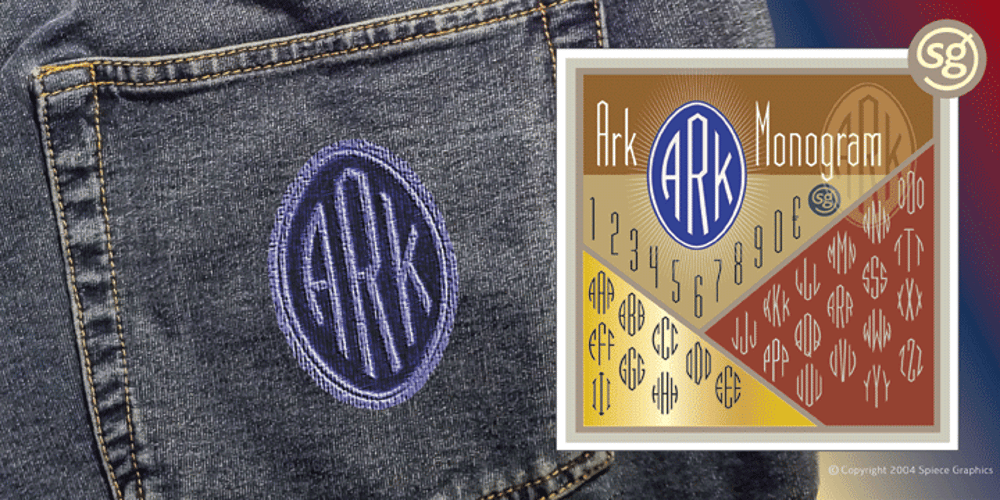
Ark Monogram SG
Ark Monogram SG font
Ark Monogram SG Font Family was designed by published by Spiece Graphics. Ark Monogram SG contains 1 styles and family package options. Ark is a combination monogram set based on the ATF Virkotype design. By combining variously shaped characters, you can produce initials within an oval frame. Just select a left-hand letter, a center letter, and a right-hand letter. Then place all three on an oval frame of your choice. Great for stationery and company logos. The Ark Monogram Set comes with easy-to-read instructions and a useful character map. Additional alternate characters have been provided for better identification and letter fitting within each font. Ark Monogram is now available in the OpenType Std format. Some new stylistic alternates have been added to this OpenType version. Advanced features work in current versions of Adobe Creative Suite InDesign, Creative Suite Illustrator, and Quark XPress. Check for OpenType advanced feature support in other applications as it gradually becomes available with upgrades.